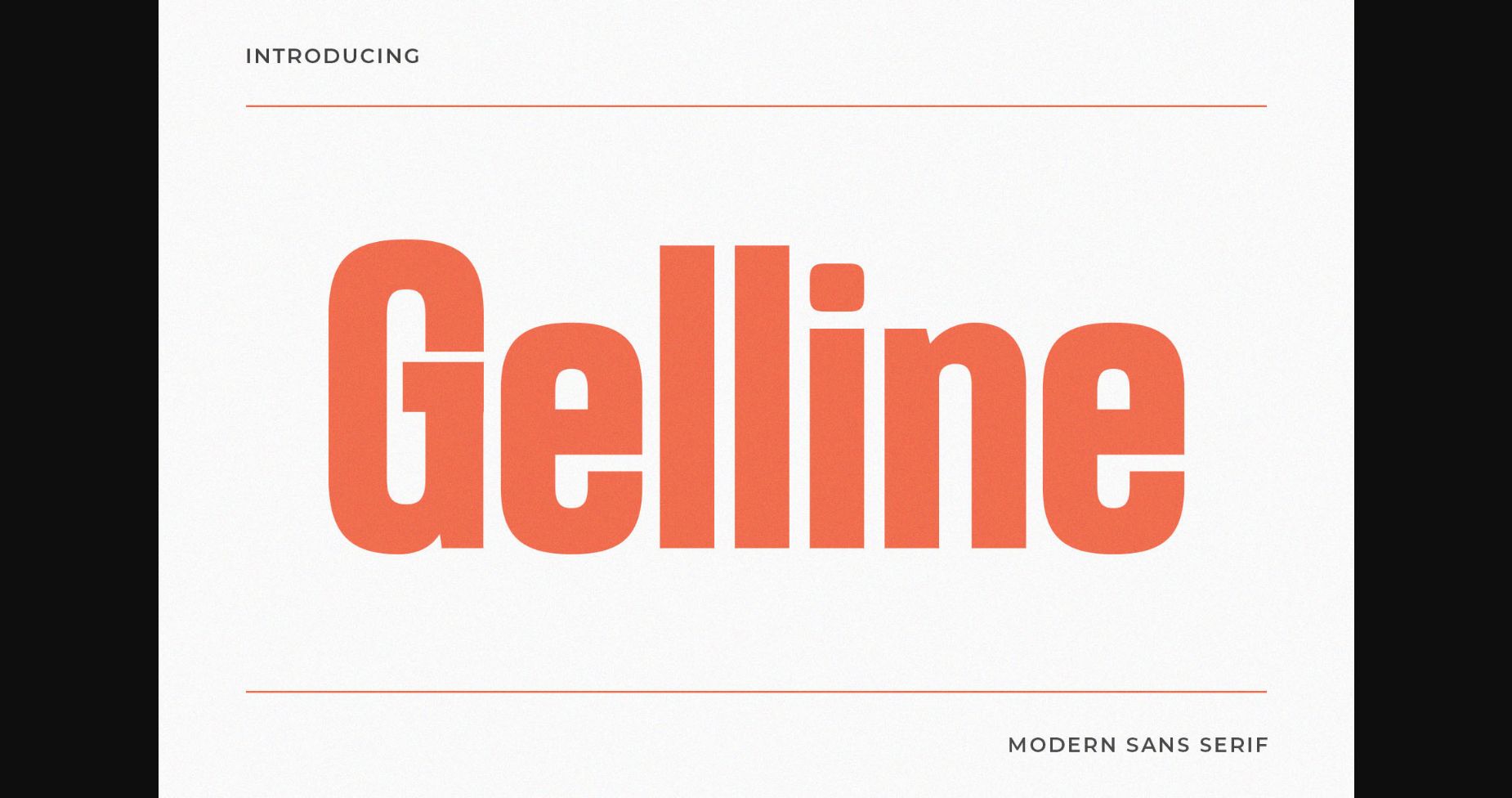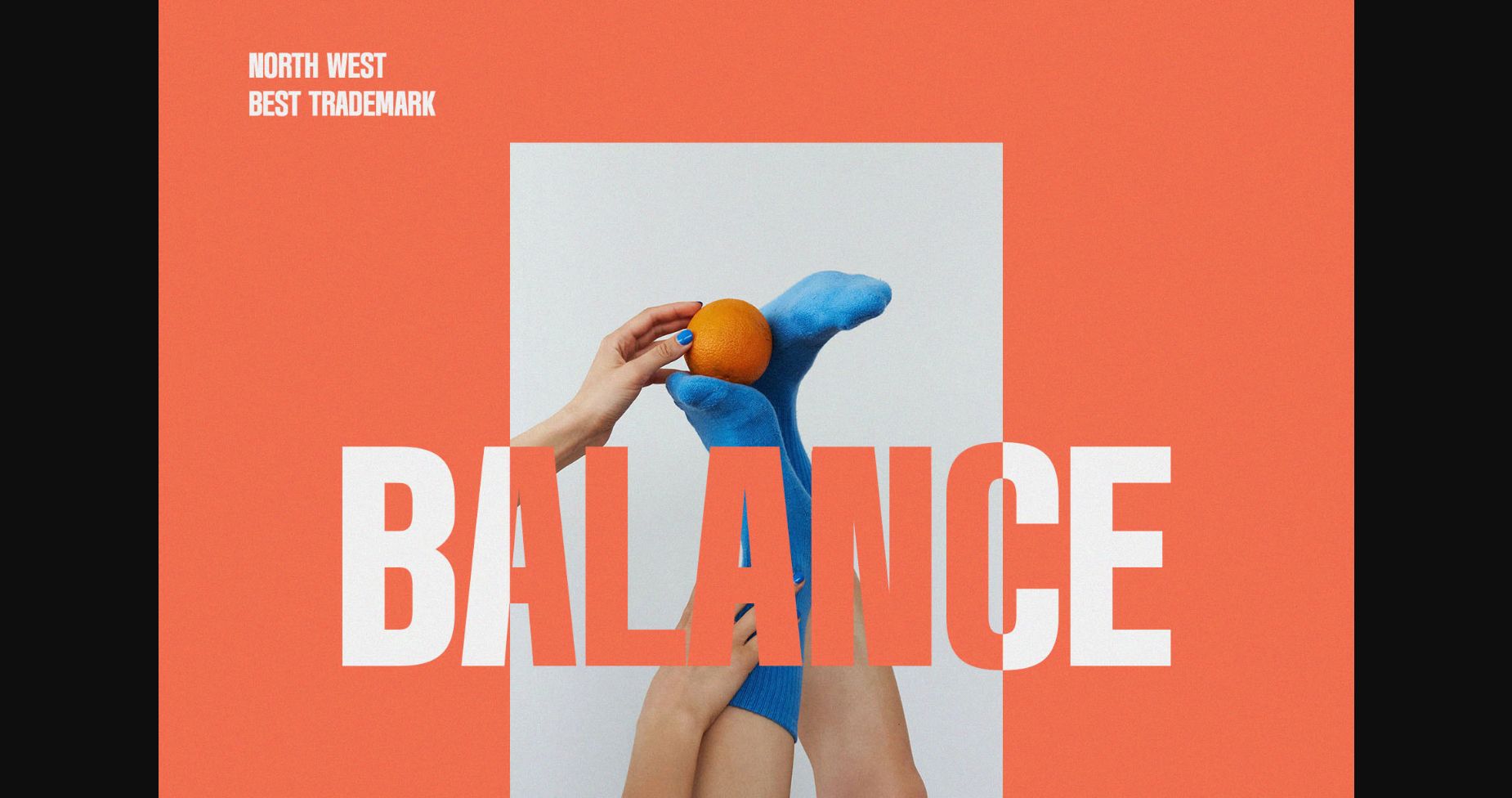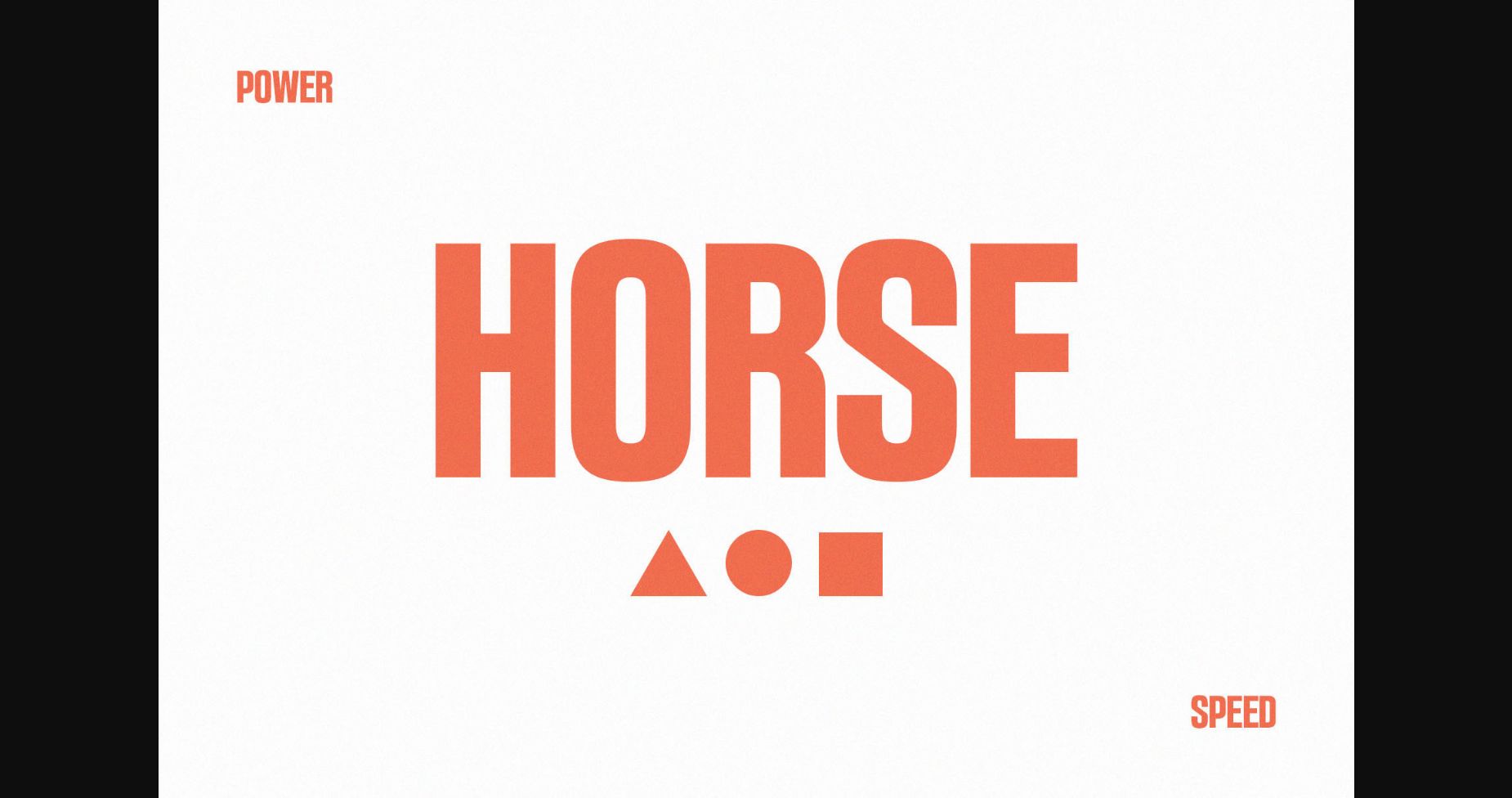
About Gelline Font
Gelline is a versatile sans serif font that can be used in a variety of contexts. Its clean lines and simple design make it easy to read and ideal for use in body text. It is also well suited for headlines and titles, as its bold weight stands out on the page.
One of the key features of Gelline is its neutrality. It is a very “neutral” font, meaning that it doesn’t have any particular associations with a certain time period or style. This makes it a good choice for companies and organizations that want to communicate a modern, forward-thinking image without being tied to a specific design trend.